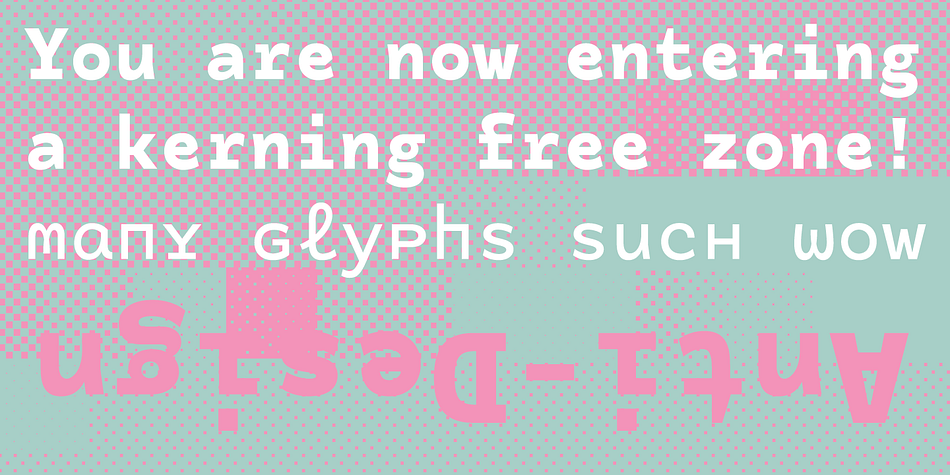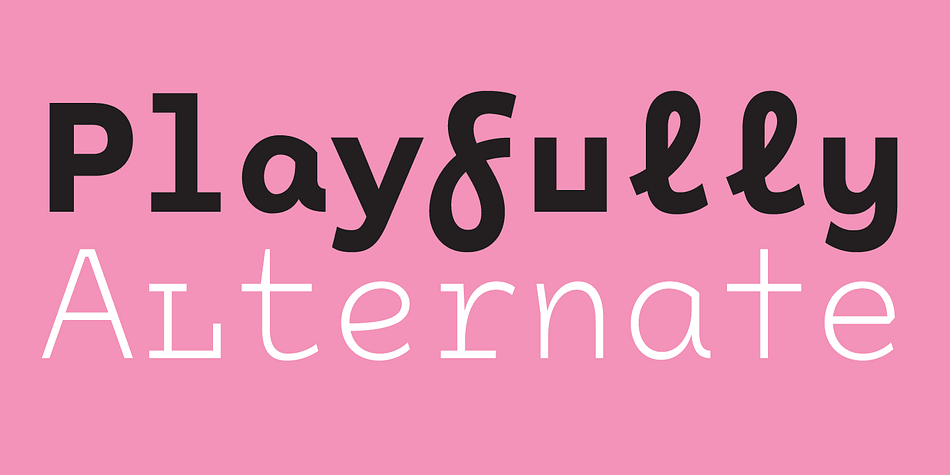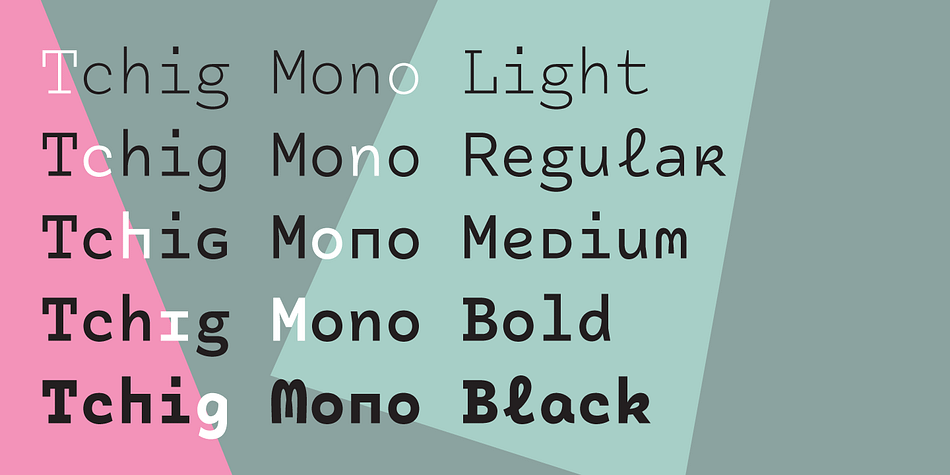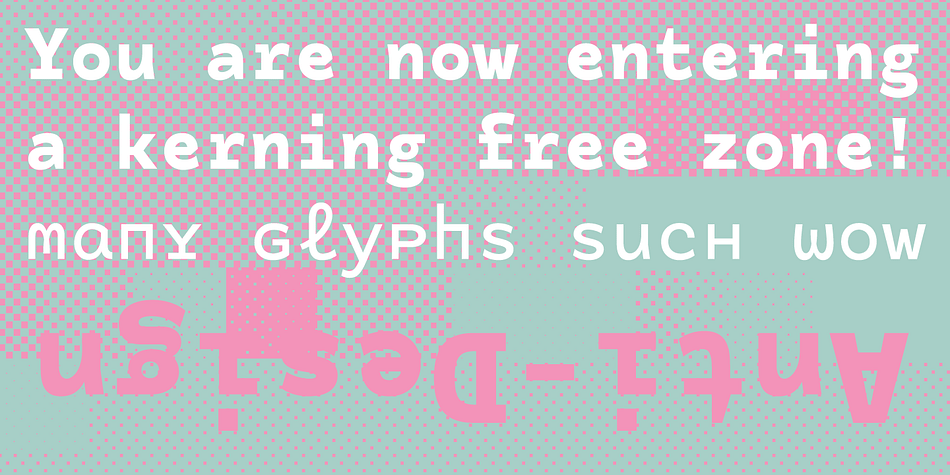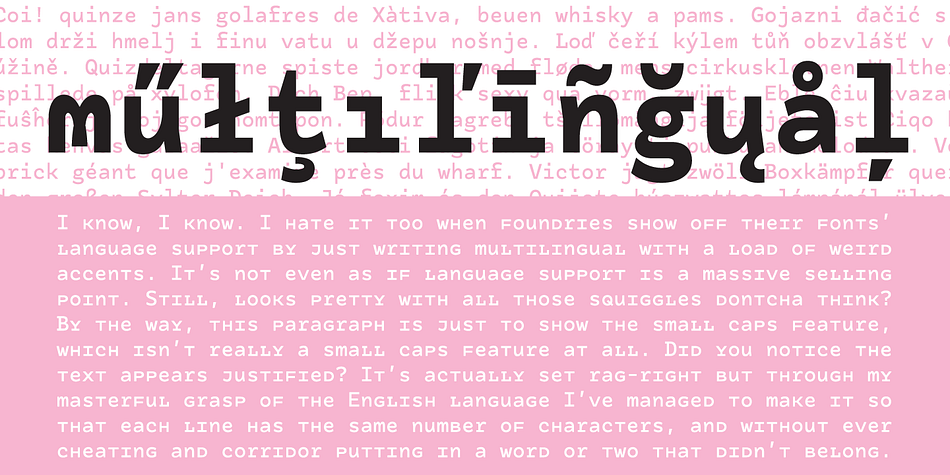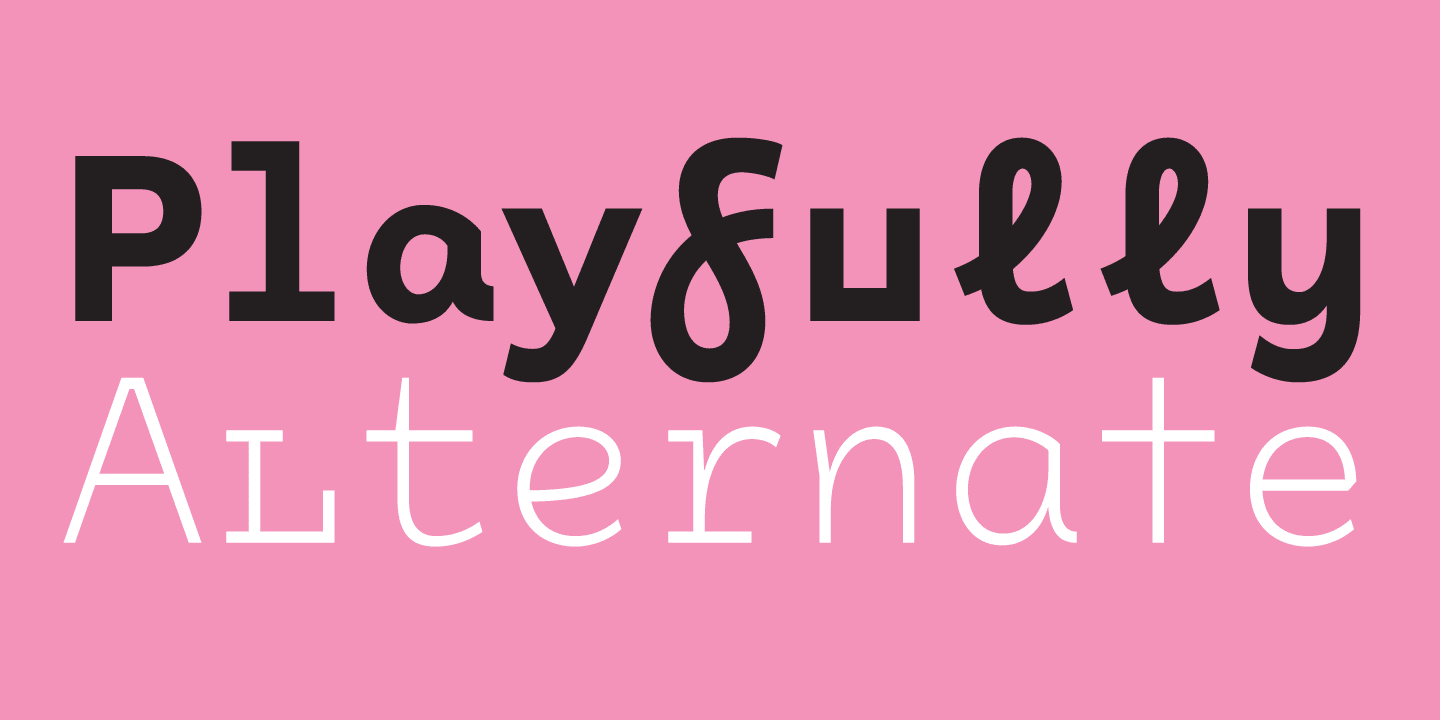
Designed by Dave Rowland, Tchig Mono is a typewriter font family. This typeface has five styles and was published by Schizotype Fonts.
This is Tchig Mono, a monospaced type family that doesn’t take itself too seriously. Why make a monospaced font? For coding, sure, but display? It’s my humble opinion that it’s the aesthetic choices driven by the constraints of the monospaced environment is what makes them attractive. It’s a challenge for the type designer to squash and expand glyphs into a rigid bounding box, and the more unorthodox shapes that spring from this have a feel about them which lends them to postmodernist layouts and hipsterish anti-design. And the payoff for the type designer - no kerning! Yay.
So what’s different about Tchig? Like I said before, it doesn’t take itself too seriously. Even the name Tchig is just a stupid, fun sound (although it does show off that nice g!). There are a selection of playful alternates that give text a slightly alien feel. Stylistic set 1 chops off ascenders and descenders of lowercase letters, giving it a kind of small caps meets unicase feel (it is also accessible using the small caps feature). The other sets (or stylistic alternates if you don’t have access to stylistic sets) make certain letters more twirly, more square, more “experimental”. Automatic fractions use a half-width numerator and denominator so fractions like one half and five eighths have the same width as figures (and every other glyph).
There you go then - a monospaced type family not initially intended for use in the usual ways monospaced families are intended to be used. Give it a try. You could even do some coding with it if you like.